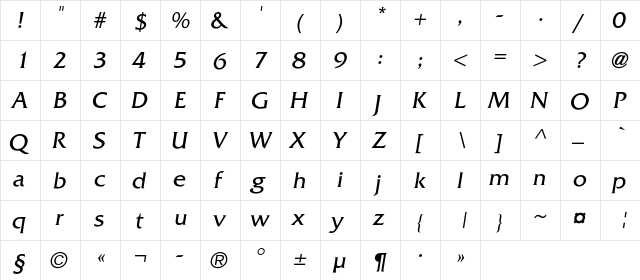
AGFriquerC Italic
Design Context for AGFriquerC Typeface
AGFriquerC offers clean, dependable letterforms without strong stylistic allegiance, making it a practical choice for designers who need flexibility. The dynamic lean of this cut emphasises speed and emphasis in any layout.
Pro Tip: Try AGFriquerC for annotation and caption copy alongside an upright companion — the contrast in angle creates a dynamic but ordered typographic system.